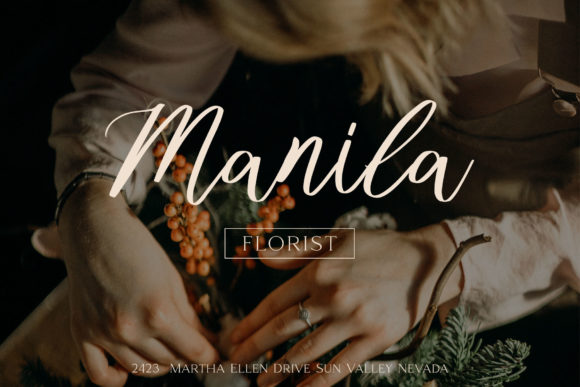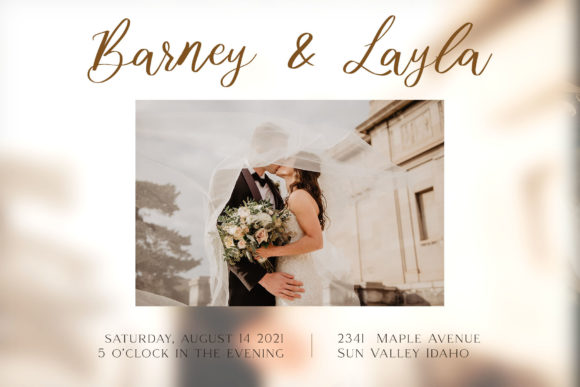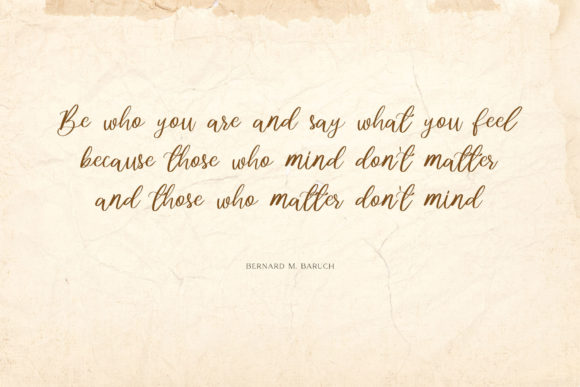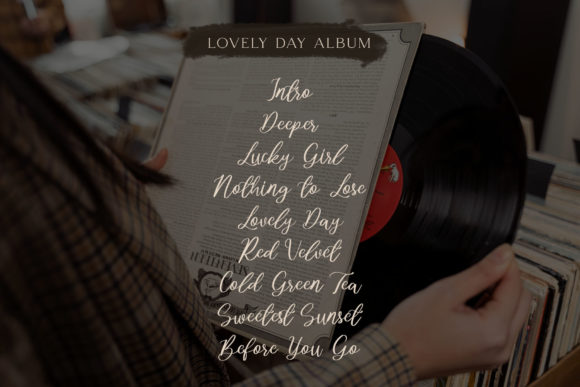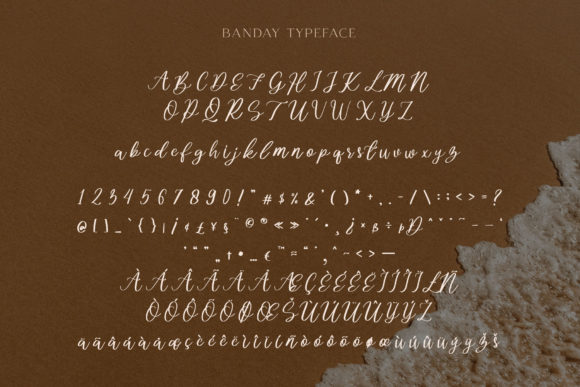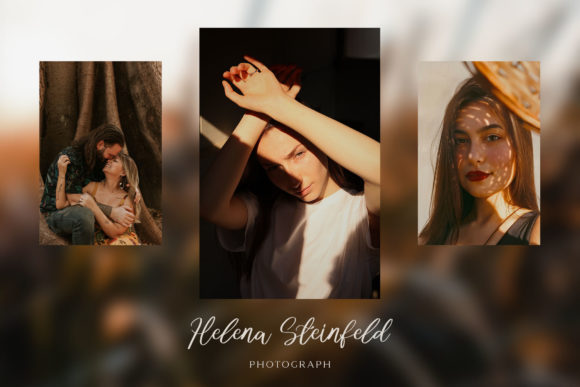
The Perfect Script: Unveiling the Elegance of Banday Font
As designers, we’ve all been there – staring at a blank page, trying to bring a concept to life. The cursor blinks, and our minds start racing with ideas. One moment, it hits us – the perfect font to convey the essence of our design. For many, that moment arrives when they discover the Banday Font, a stunning script font that exudes refinement and sophistication.
Designed to make a statement, the Banday Font is perfect for logos, branding, invitations, and more. Its elegant and modern look adds a touch of class to any design. Whether you’re a seasoned designer or just starting out, the Banday Font is a valuable addition to your toolkit, offering endless possibilities for creative expression.
Banday Font Key Features
- Font Family: Banday is a unique, hand-drawn font family with multiple styles and weights.
- Character Count: Includes a wide range of characters, including Latin, Cyrillic, and Devanagari scripts, with over 1,000 glyphs.
- Unique Characteristics: Features intricate, hand-drawn details and subtle texture, giving it a distinctive, organic feel.
Review: Banday Font
When I first laid eyes on the Banday Font, I was struck by its unique blend of traditional and modern elements ✨. The font’s intricate details and subtle flourishes give it a sophisticated, high-end feel that’s perfect for luxury brands or high-end publications.
Here are some of the things that work well for the Banday Font:
- Unique and sophisticated design ✨
- Perfect for luxury brands or high-end publications
- High-quality, detailed typography
- Wide range of weights and styles to choose from
However, I did encounter some limitations ⚠️:
- May be difficult to read at very small sizes due to its intricate details
- Not as versatile as some other fonts, may not be suitable for casual or everyday use
- Some users may find the font too ornate or over-the-top
Overall, I’d say the Banday Font is a solid choice for designers looking to add some sophistication and elegance to their projects ✨. While it may not be the best choice for every project, it’s certainly worth considering for high-end or luxury branding.
The Banday Font is ideal for creative projects that require a unique, elegant, and sophisticated look. Common use cases include:
- Brand logos and typography
- Book covers and publishing materials
- Editorial and magazine design